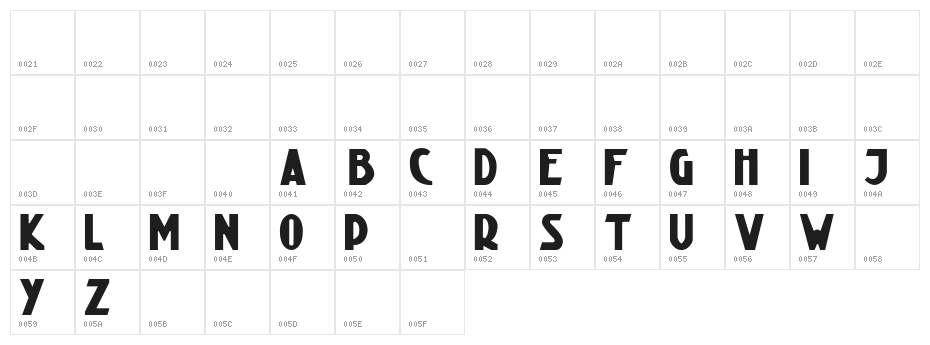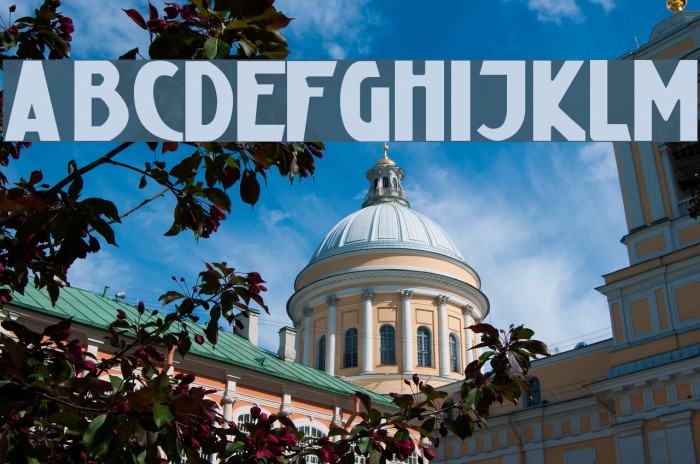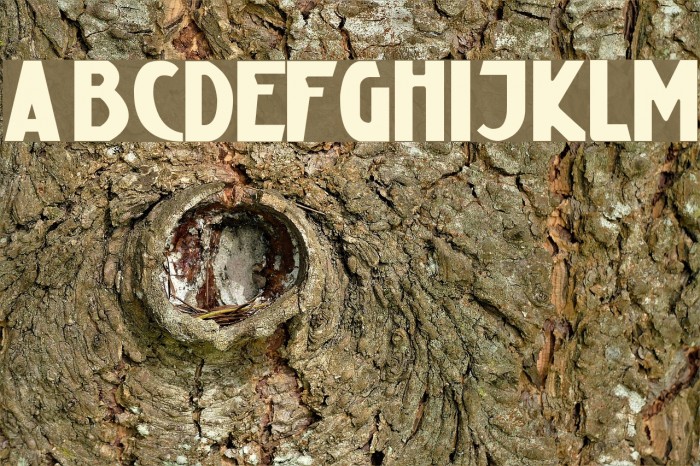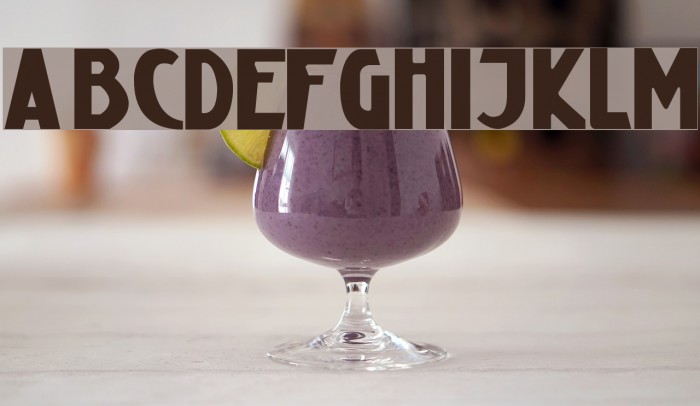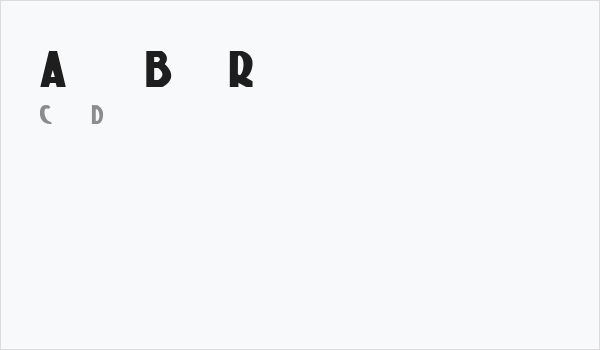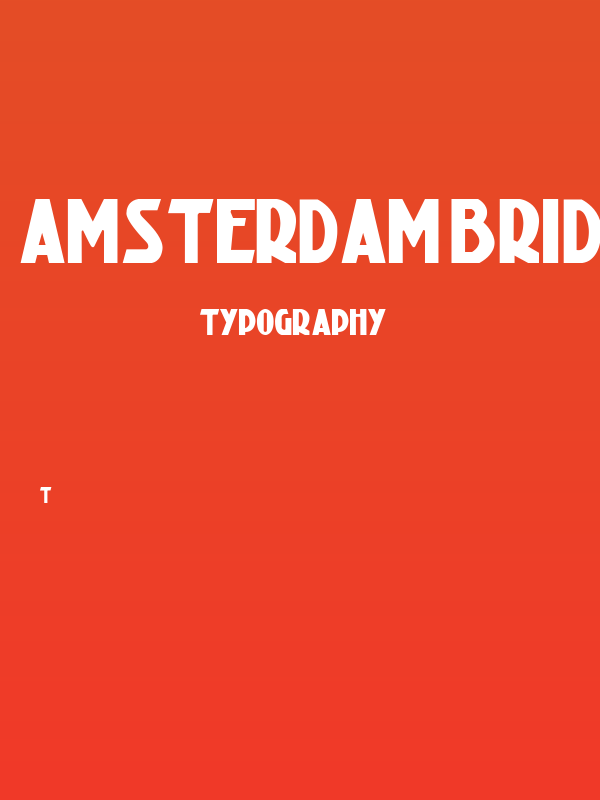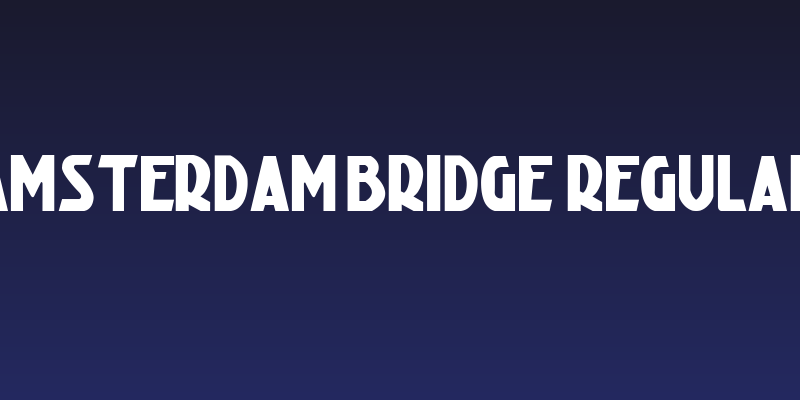
AmsterdamBridge-Regular Font
AmsterdamBridge-Regular Description
This font features bold, geometric letterforms with a distinct Art Deco influence. The characters are constructed with strong, angular lines and a uniform stroke width, giving them a solid and impactful appearance. The uppercase letters exhibit a unique blend of sharp edges and rounded elements, creating a dynamic visual contrast. The overall design is clean and modern, yet it carries a vintage charm reminiscent of early 20th-century typography. The font's boldness and clarity make it highly legible, even from a distance, making it suitable for various display purposes.
| Overall Style | Vintage, Modern |
| Proposed Projects | Ideal for branding, poster design, signage, and any project requiring a bold, vintage-modern aesthetic. |